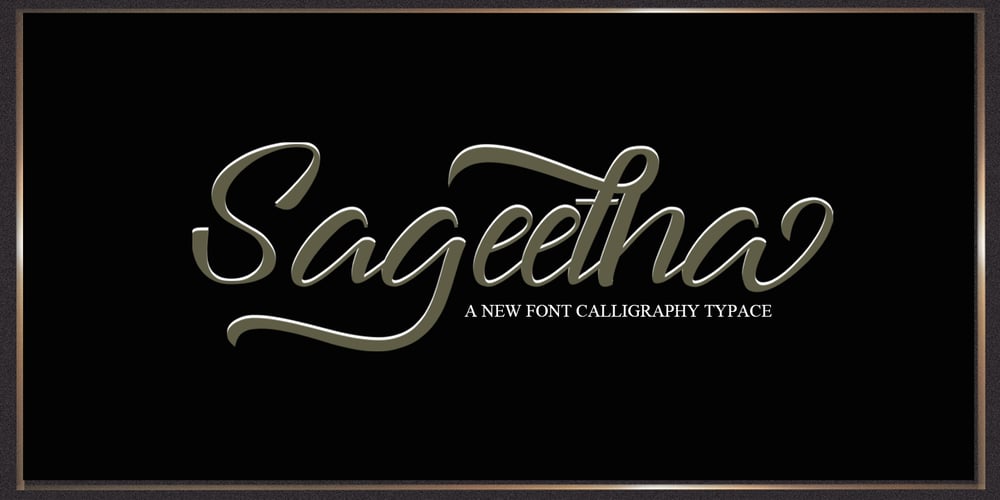
Sageetha Script Font Family was designed by Teuku Zulfikar and published by Josstype. Sageetha Script contains 2 styles and family package options. Sageetha Scrip is a handwritten typeface with classic root. a beautiful formal script and elegant touch. It works perfect in the world of weddings, logos, greeting cards, branding, print ads, quotes, signage, magazines etc.o enable the OpenType Stylistic alternates, you need a program that supports OpenType features such as Adobe Illustrator CS, Adobe Indesign & CorelDraw X6-X7, Microsoft Word 2010 or later versions.